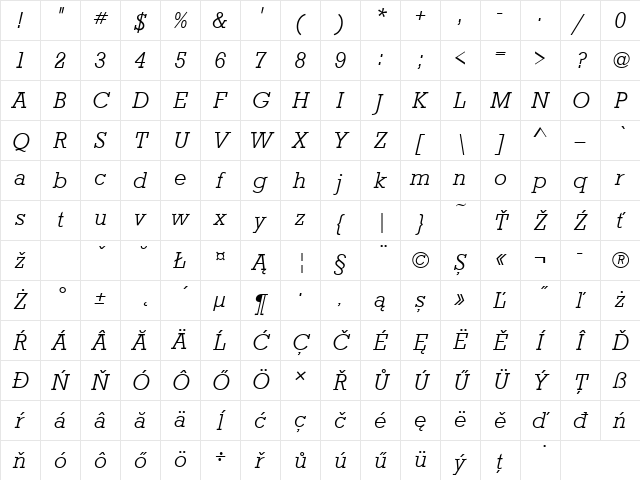
RoctusTEELig Italic
RoctusTEELig Family
RoctusTEELig Italic
Design Context for RoctusTEELig
RoctusTEELig is a composed and adaptable typeface that performs quietly and consistently across a wide range of design contexts. The slanted form adds forward momentum and visual energy.
Pro Tip: Use RoctusTEELig for emphasis, pull quotes, and subheadings where its slanted energy can add rhythm to the layout.